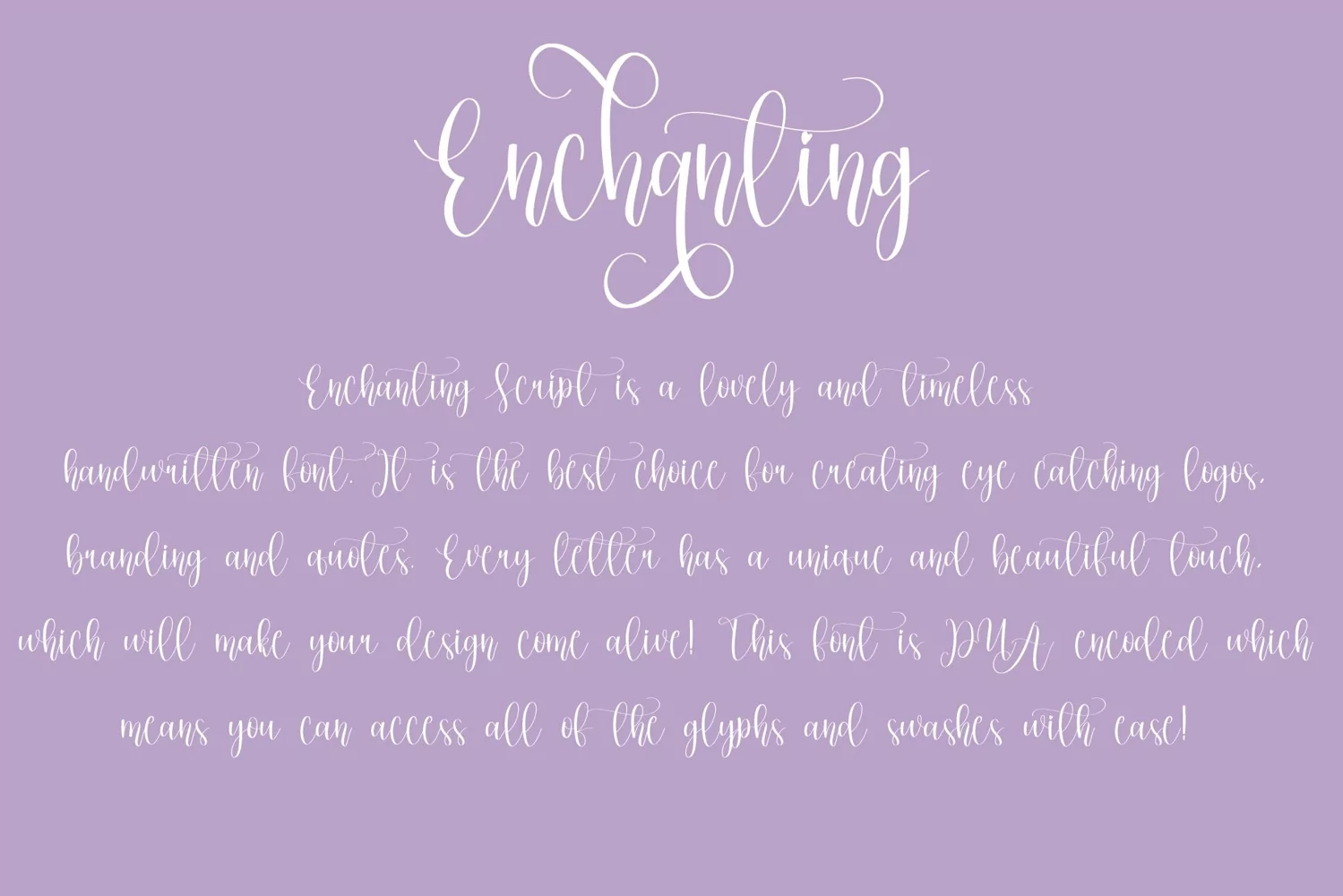
Enchanting | Script font
Enchanting Font is a popular and professional script font. It is Modern and elegant, this typeface is made of beautiful, creative strokes.